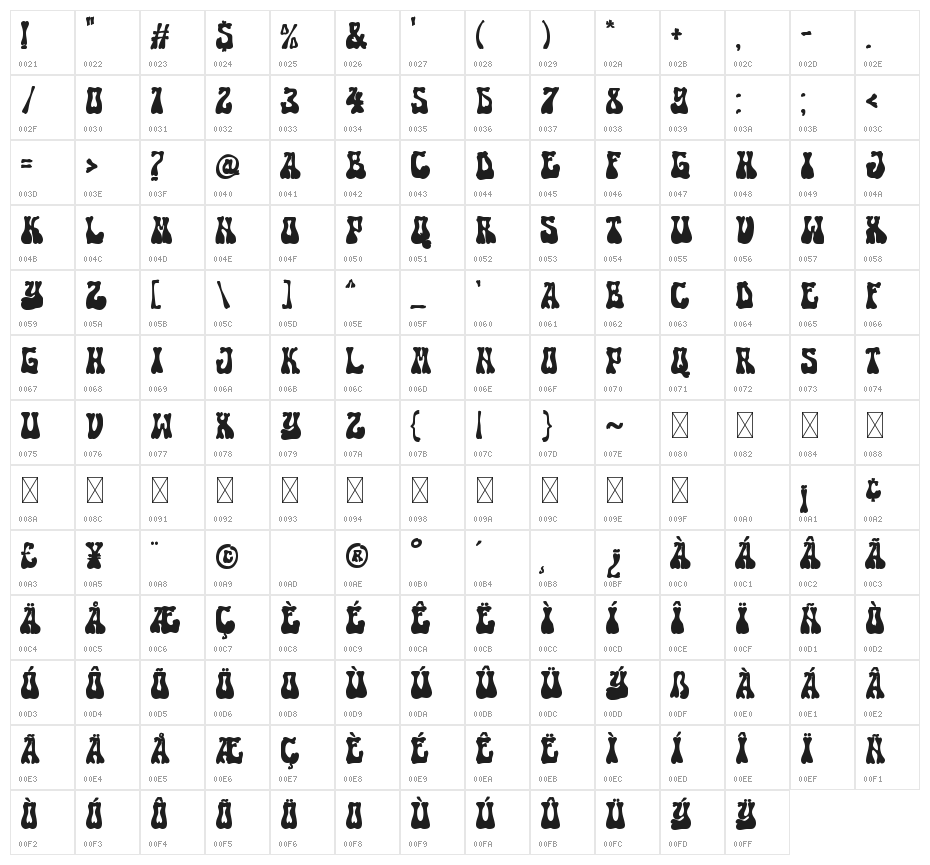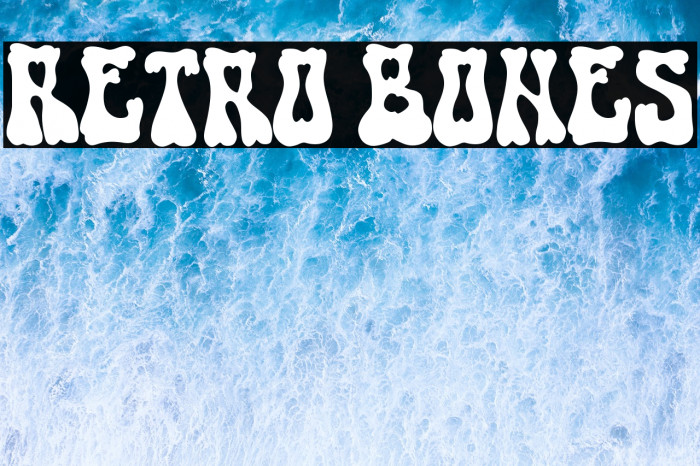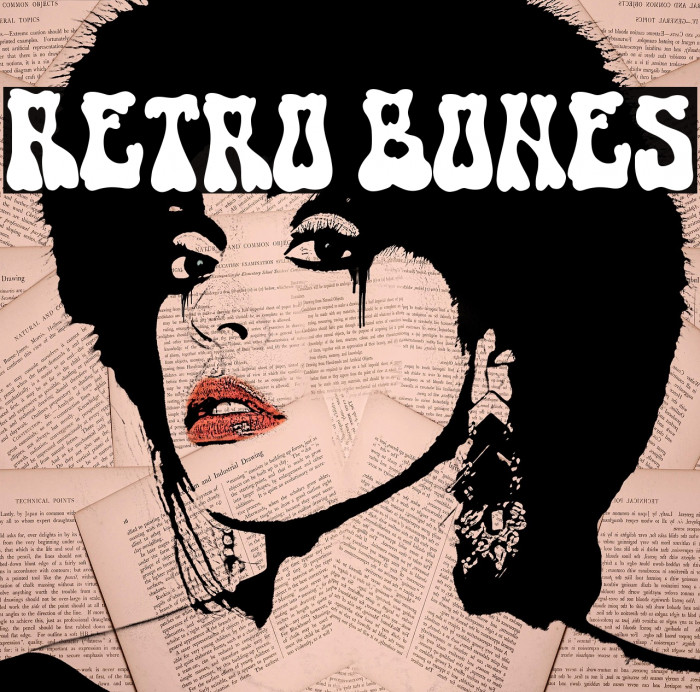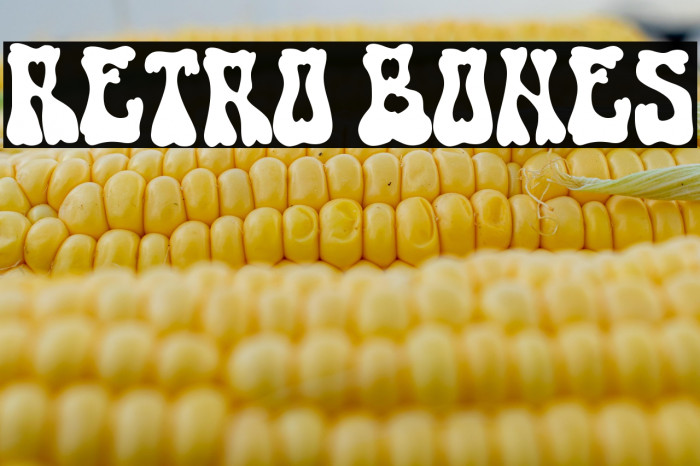
Retro Bones Font
Retro Bones Description
This font features a bold and playful design, reminiscent of retro styles with a unique twist. The characters are thick and rounded, with an organic, almost bone-like appearance that gives it a distinctive and quirky personality. The uppercase and lowercase letters maintain a consistent style, with exaggerated curves and a slightly uneven baseline that adds to its charm. The numbers and special characters follow the same design principles, ensuring a cohesive look across all glyphs. This font is perfect for projects that require a fun and eye-catching aesthetic.
| Overall Style | Retro, Quirky, Fun |
| Use Case | Headlines, Posters, Branding |
| Proposed Projects | Ideal for Halloween-themed designs, children's book covers, playful branding, and retro-inspired posters. |